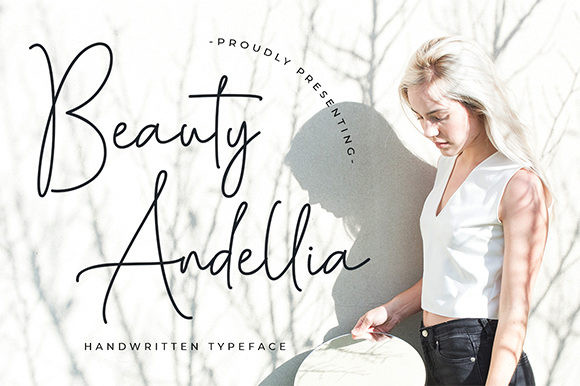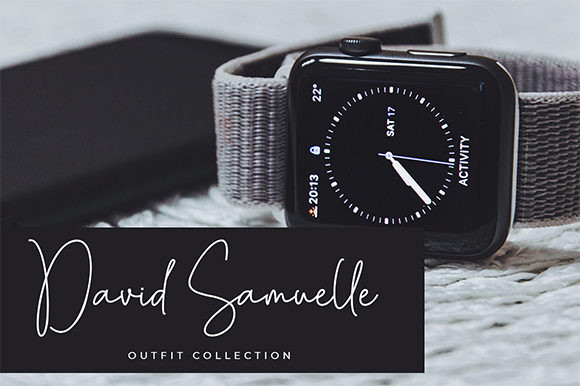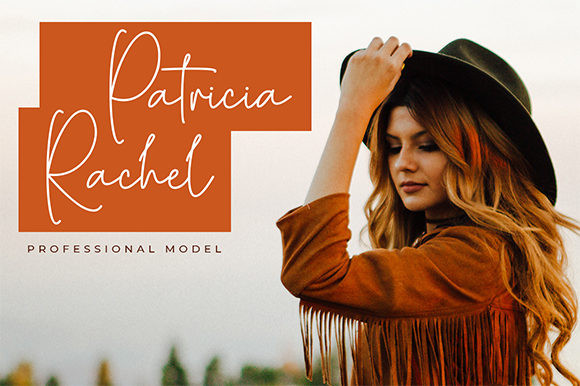
Beauty Andellia Font
Beauty Andellia is a stunning signature font. This handwritten font is the perfect font for adding a personal touch to your upcoming projects!
Fall in love with its authentic feel and use it to create gorgeous wedding invitations, beautiful stationary art, eye-catching social media posts, and cute greeting cards.